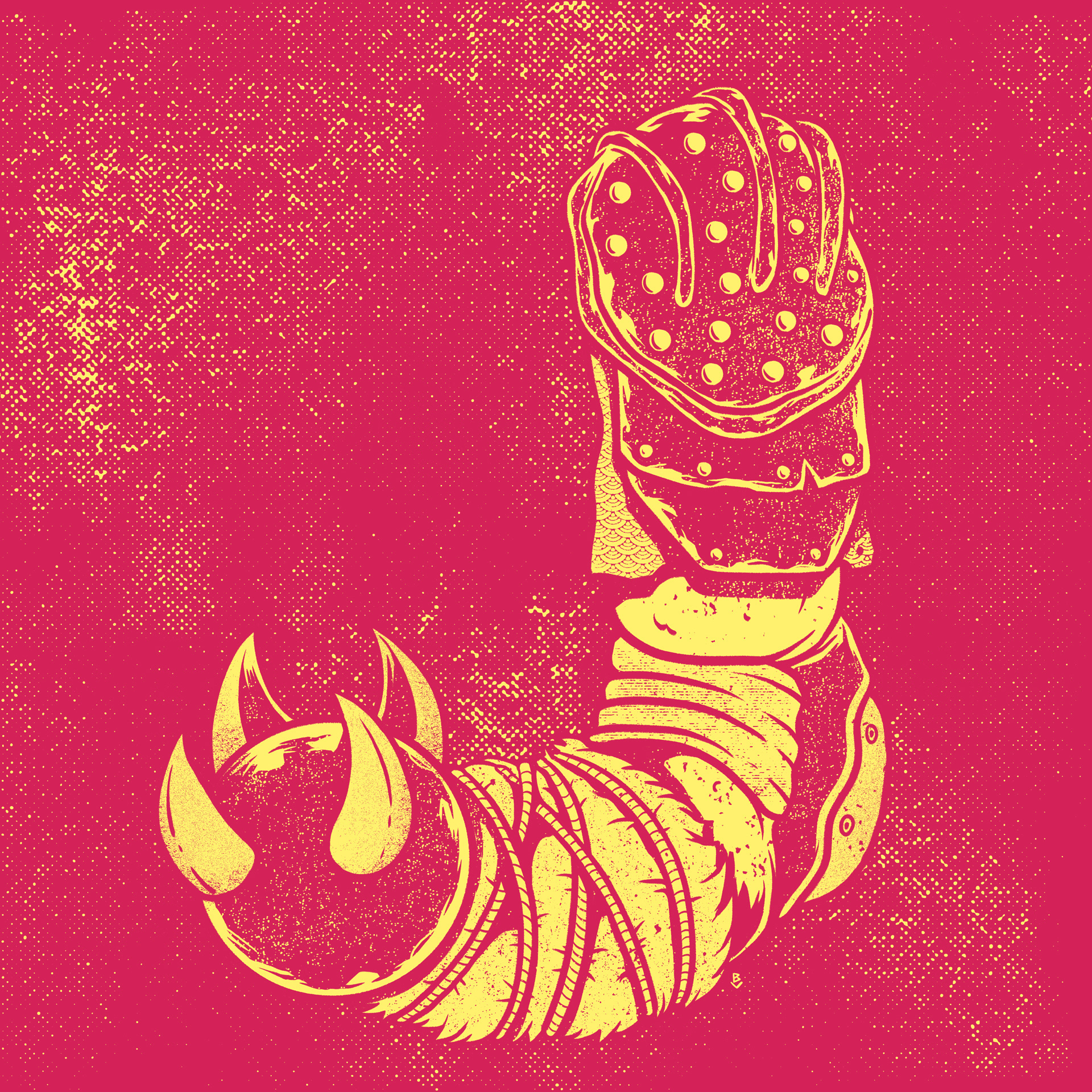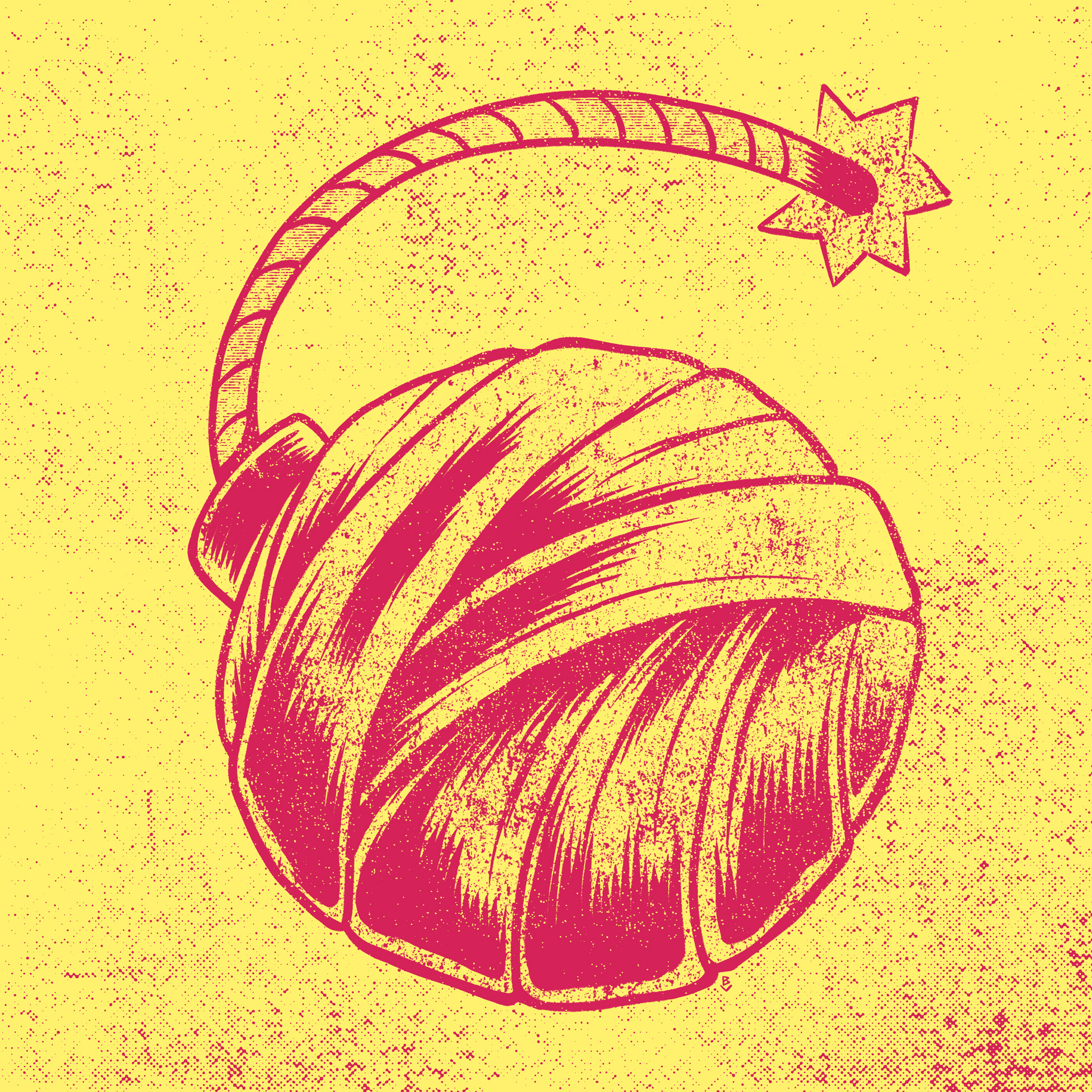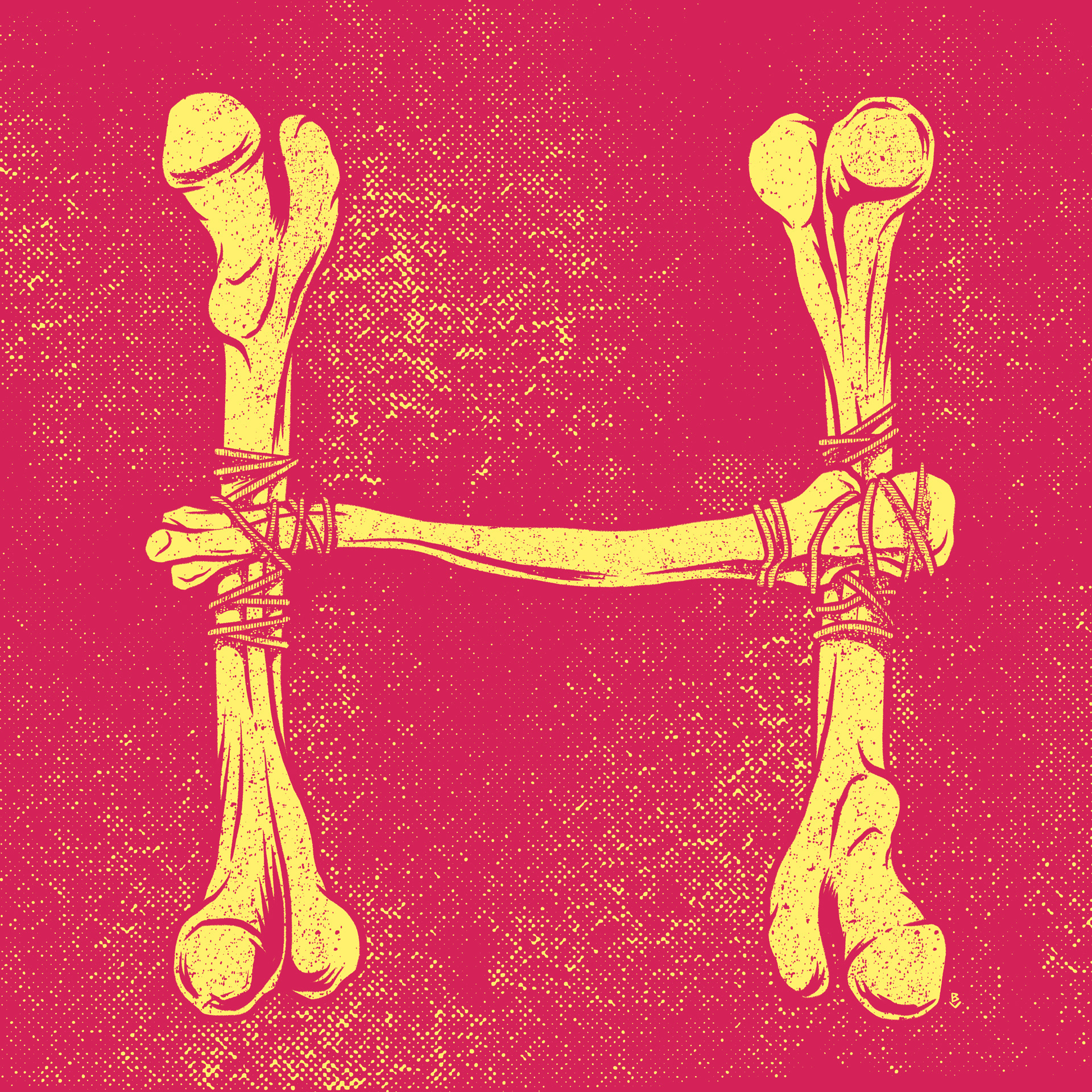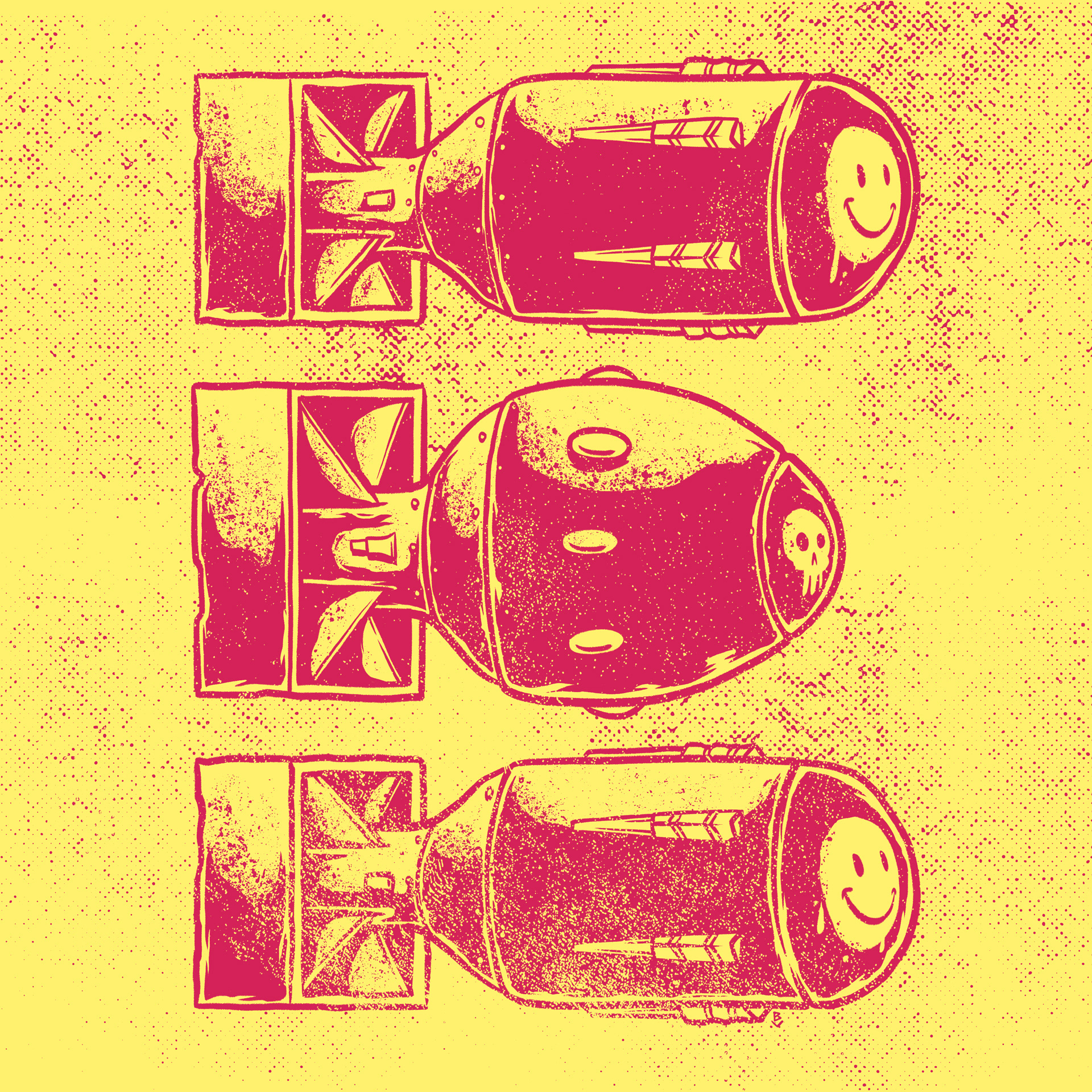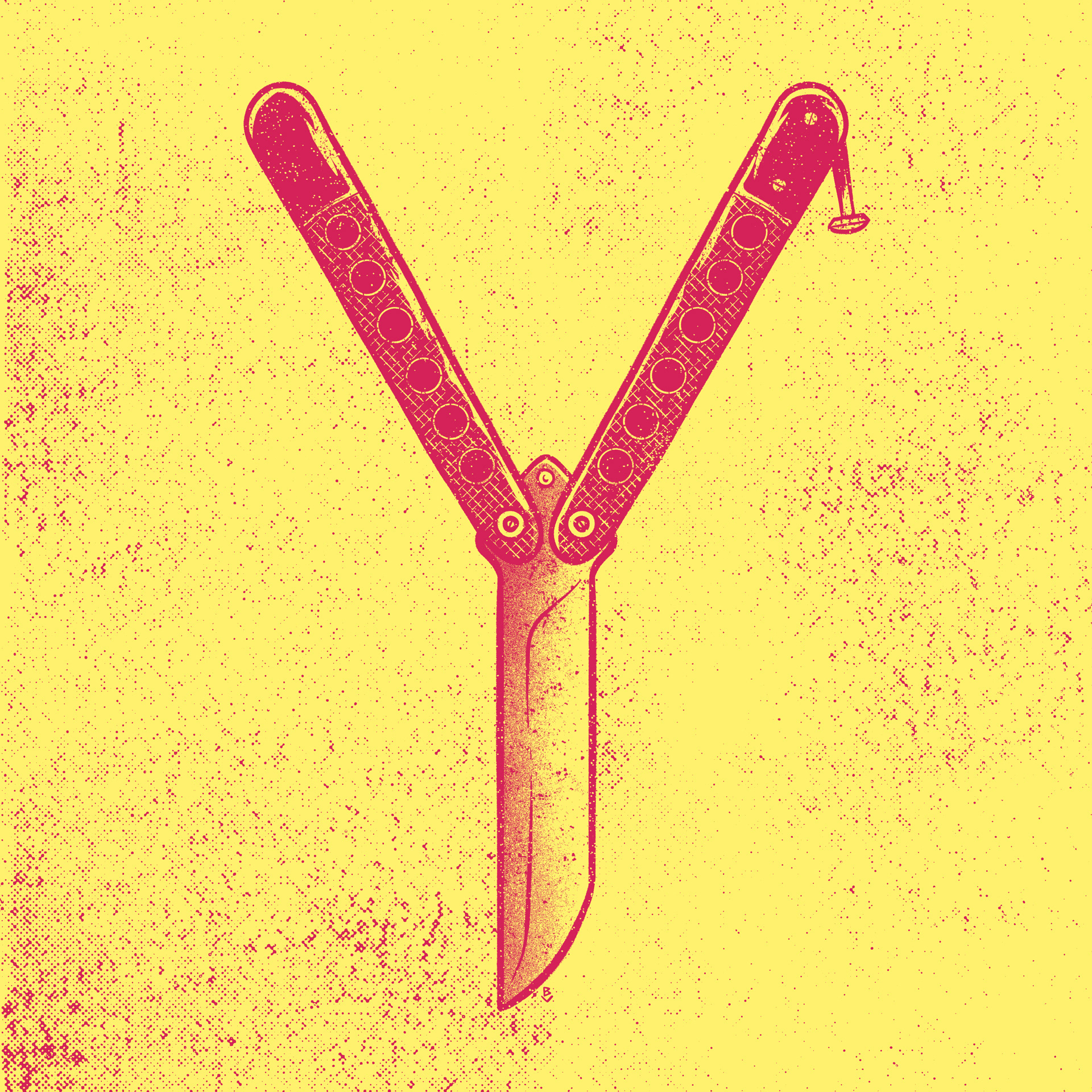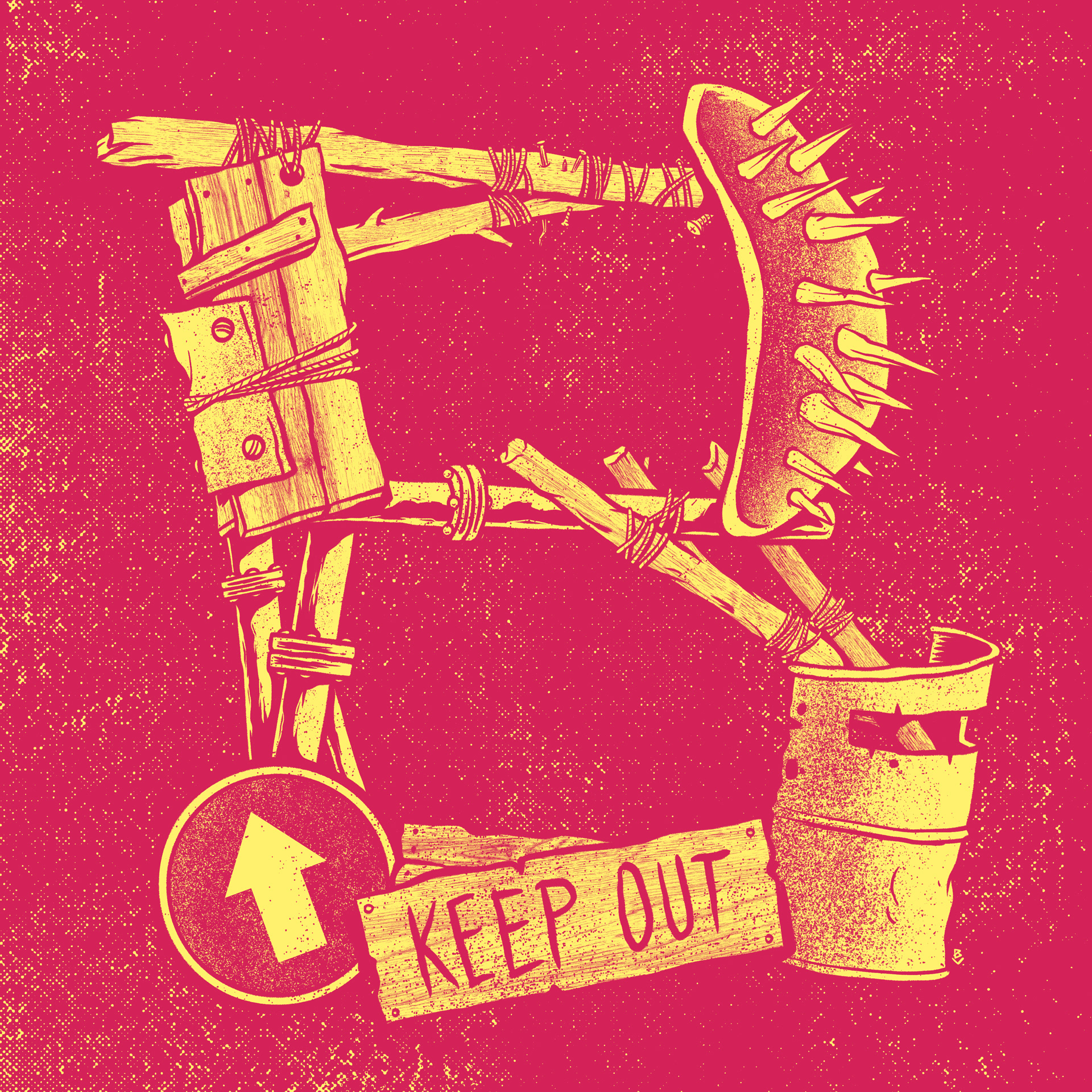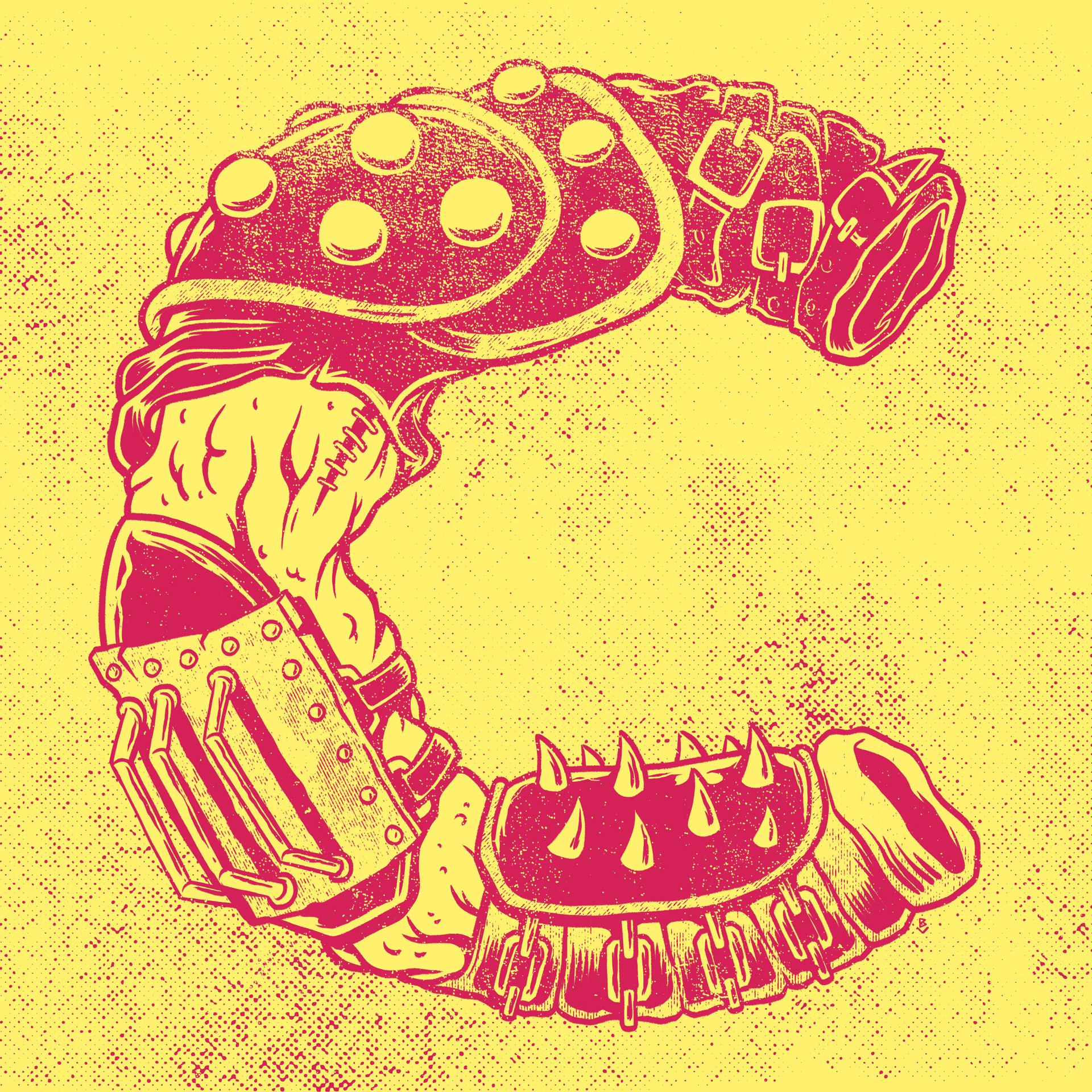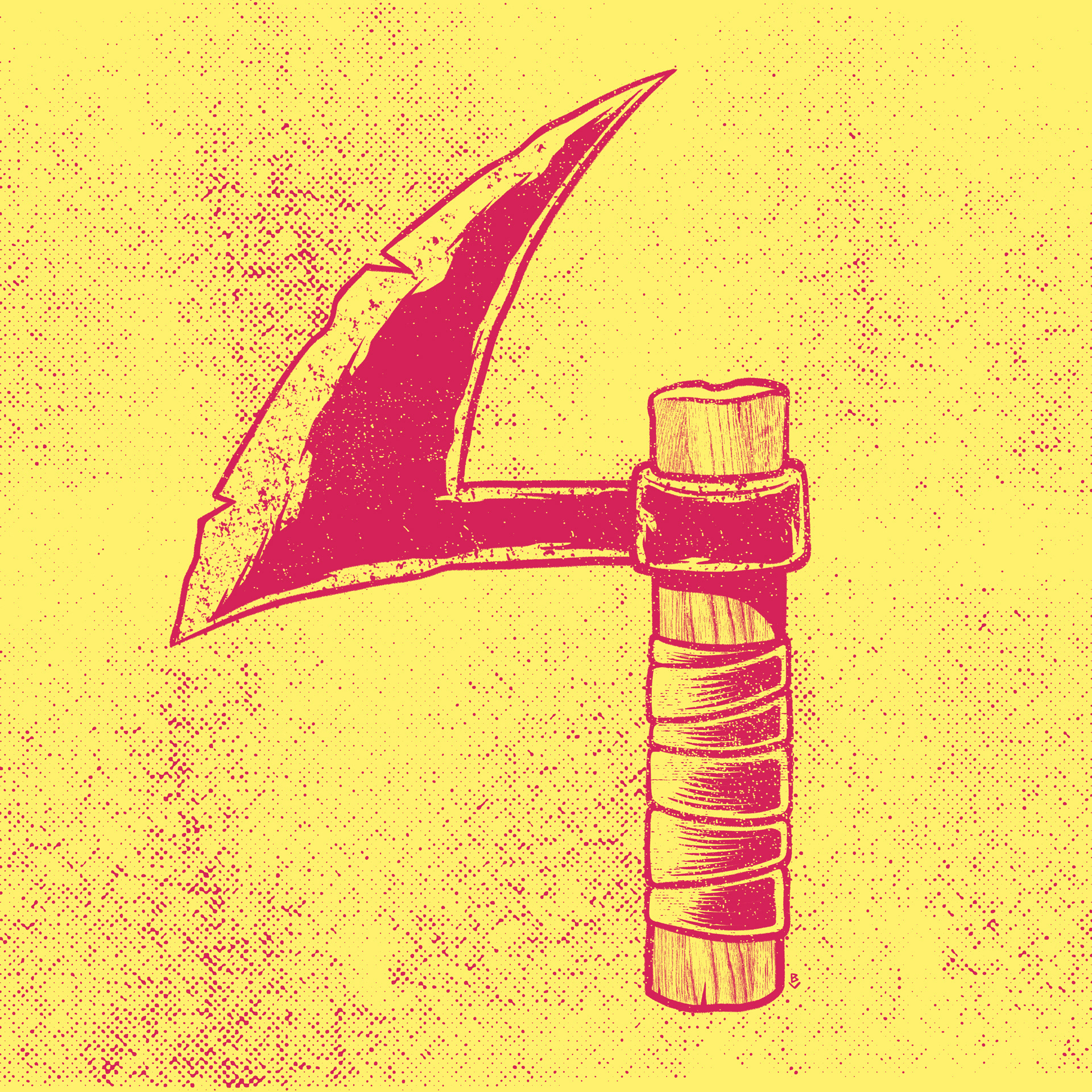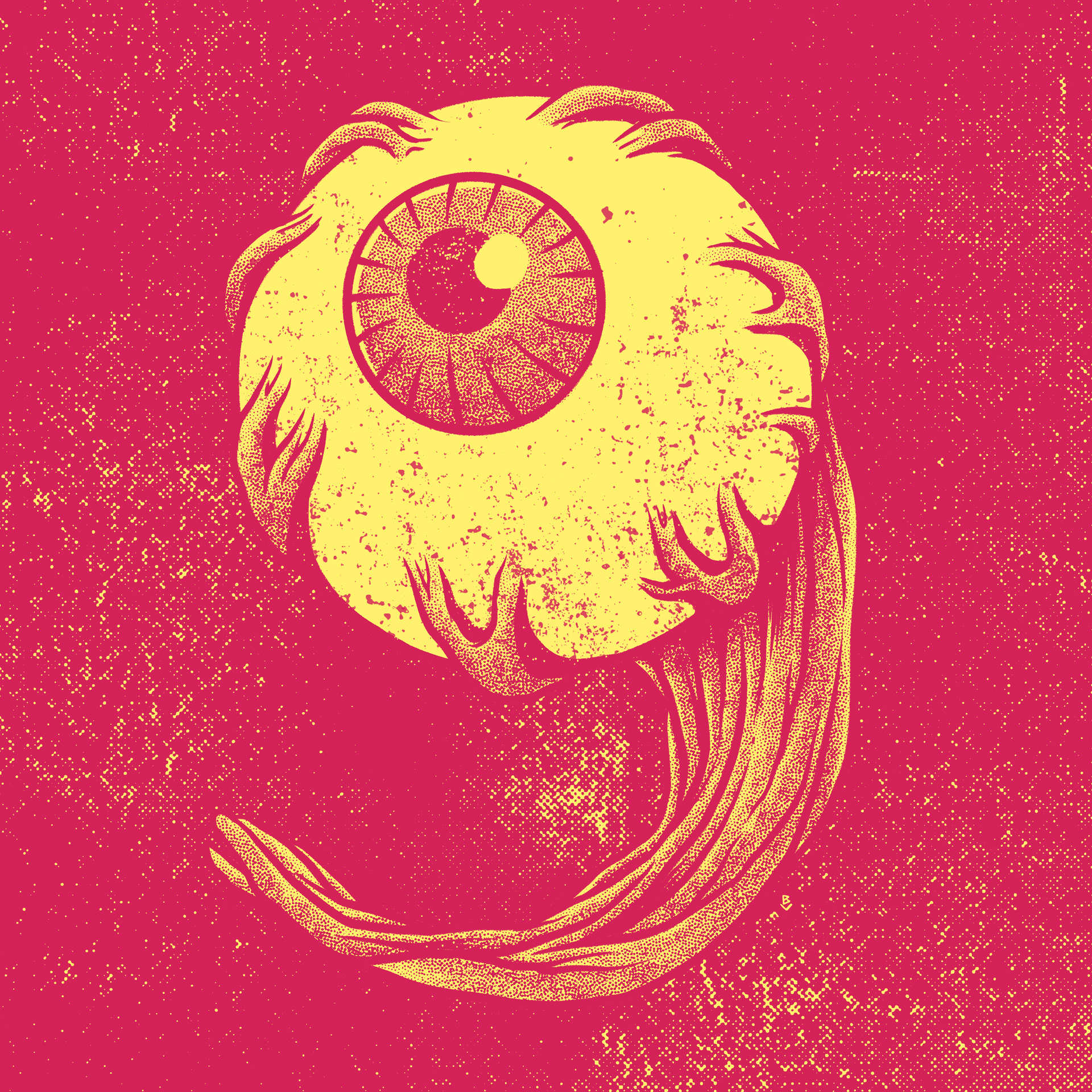
Apocalypse Font
Illustrated font based post-apocayiptic pop culture stuff
Apocalypse Font
is my proposal for
36 Days of Type
2018.
Is an illustrated font based on the typical post-atomic sceneries from pop culture,
like
Mad Max
movies or
Fallout
video games saga.